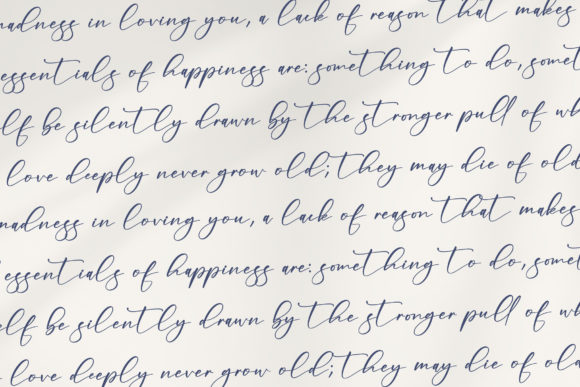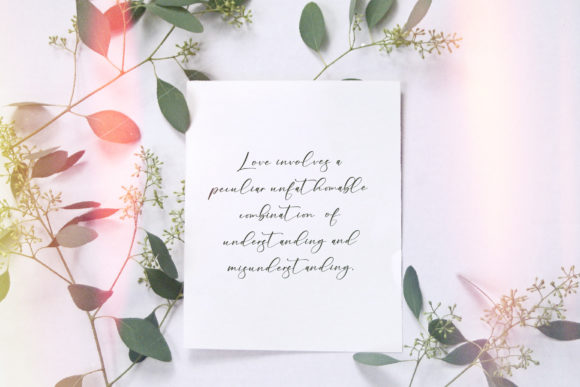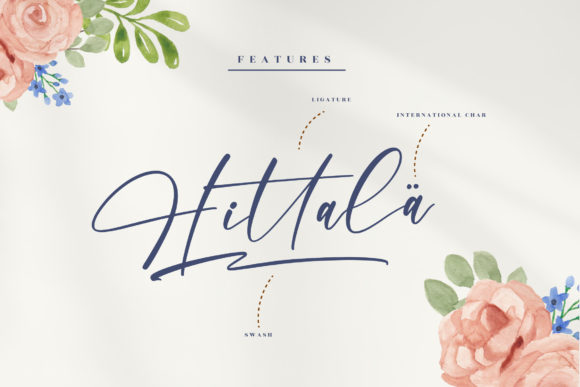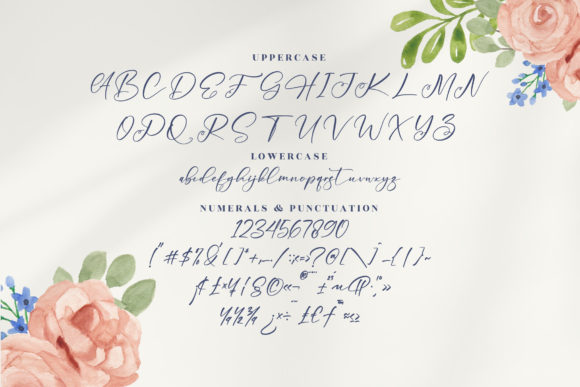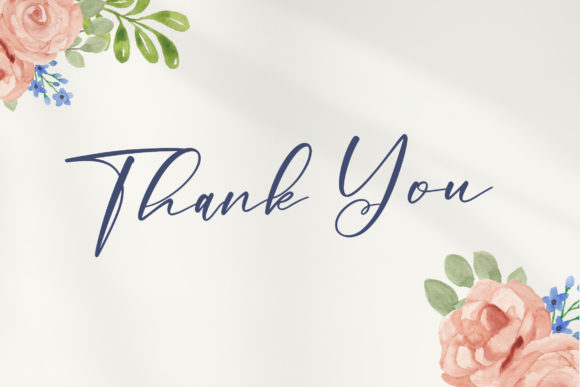
Merachel Angelika Font
About Merachel Angelika Font
Merachel Angelika is a dainty handwritten font, featuring a chic flow. It maintains its classy calligraphic influences while feeling contemporary and fresh. Fall in love with it and bring your projects to the highest levels!